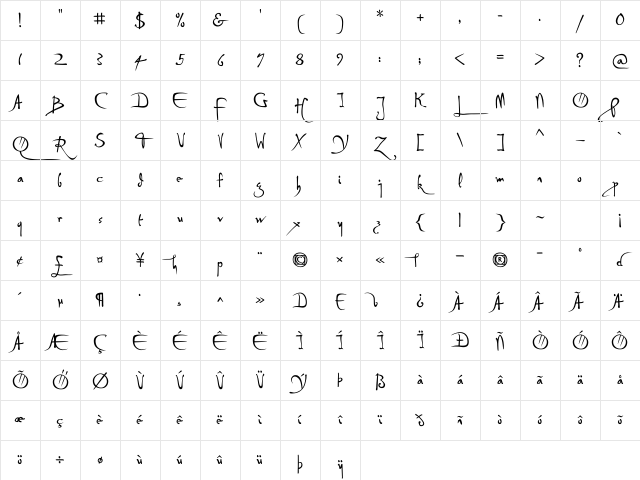
P22 DaVinci Forward Free Font
P22 DaVinci Forward
Style: Forward
P22 DaVinci Family
Design Context for P22 DaVinci
P22 DaVinci is a composed and adaptable typeface that performs quietly and consistently across a wide range of design contexts.